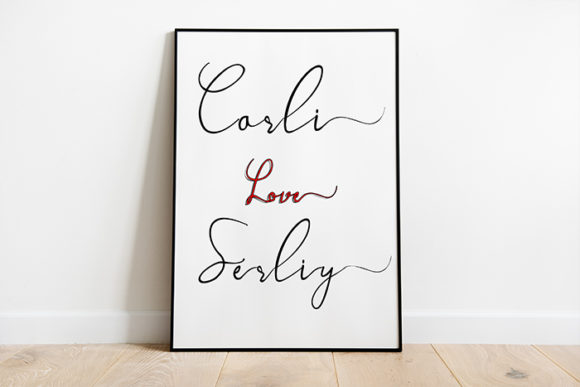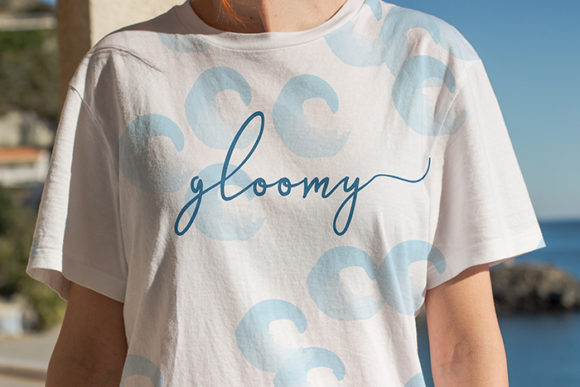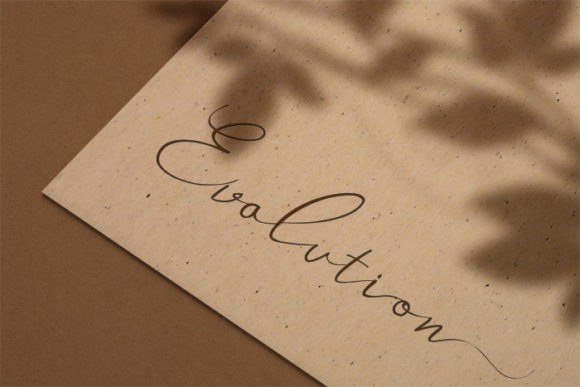
About Wollaston Font
Wollaston is a thin and elegant handwritten font with a natural feel. It will look great on invitations, signatures, blogs, social media posts, business cards, and stationery. Wollaston is the perfect font for making original and outstanding designs.